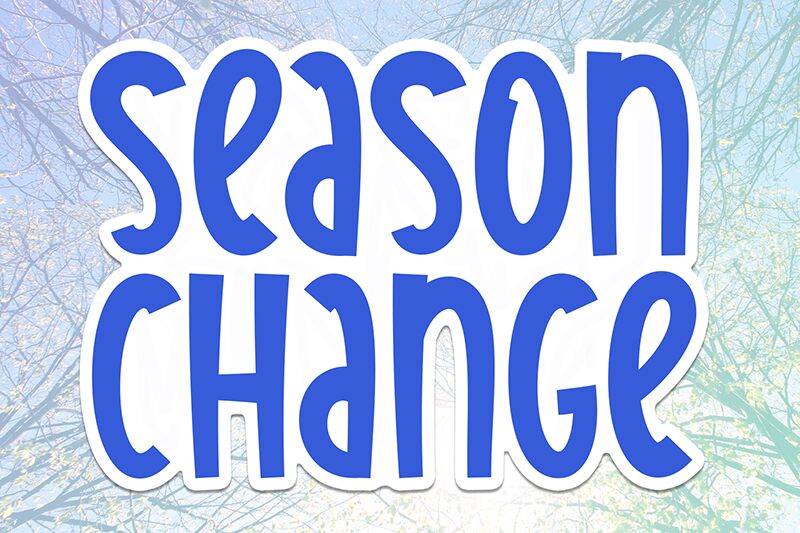
Season Change
Season Change font by Scratchones is a display font with a playful comic style. Its condensed form, irregular spacing, and uneven height give it a whimsical, hand-drawn feel full of artistic flair. The casual and quirky design makes it versatile and engaging.
Utilize this free display font in book covers, greeting cards, posters, mugs, t-shirts, banners, stationery items, app icons/logos, comics/graphic novels as well as website/app headlines. Ideal for artistic projects needing that extra touch of life and originality!